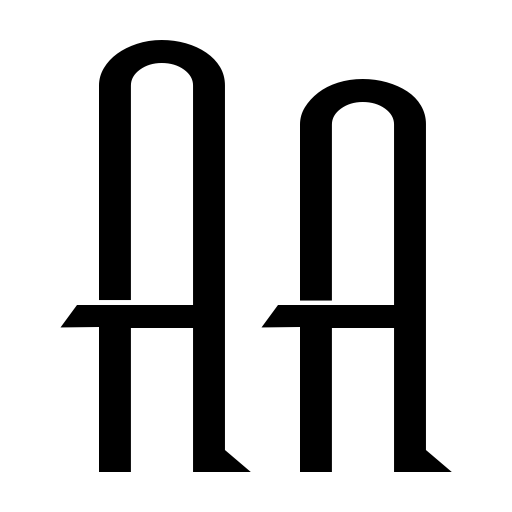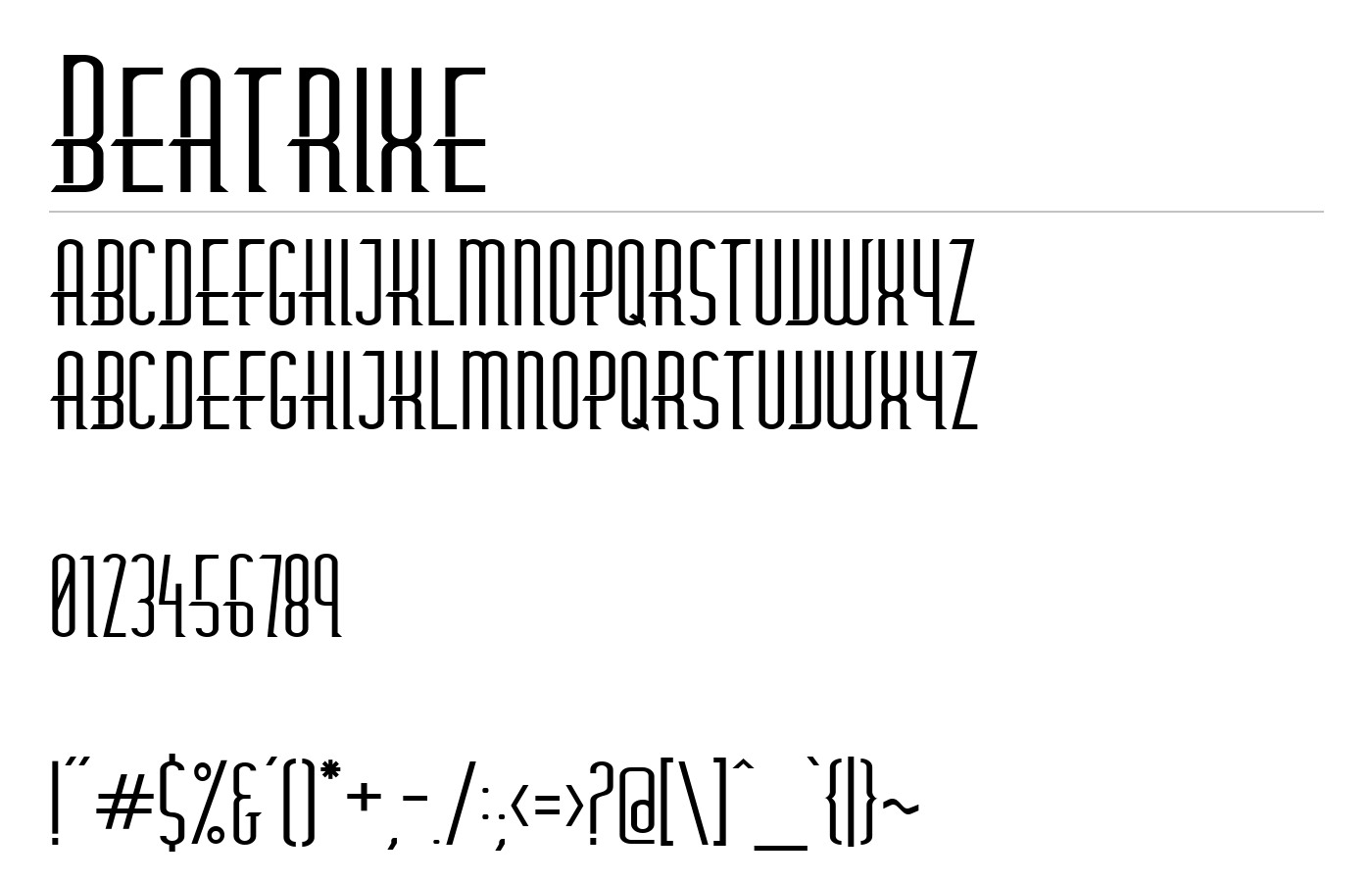
Beatrixe is a tall, condensed sans serif font with a modern and geometric feel. Its high contrast between thin and thick strokes, combined with unique segmented letterforms and a slightly futuristic touch, makes it ideal for striking headlines, logos, and editorial designs seeking a bold, contemporary look. This font communicates sophistication with an avant-garde edge, perfect for fashion, tech, and luxury branding.
Beatrixe Font